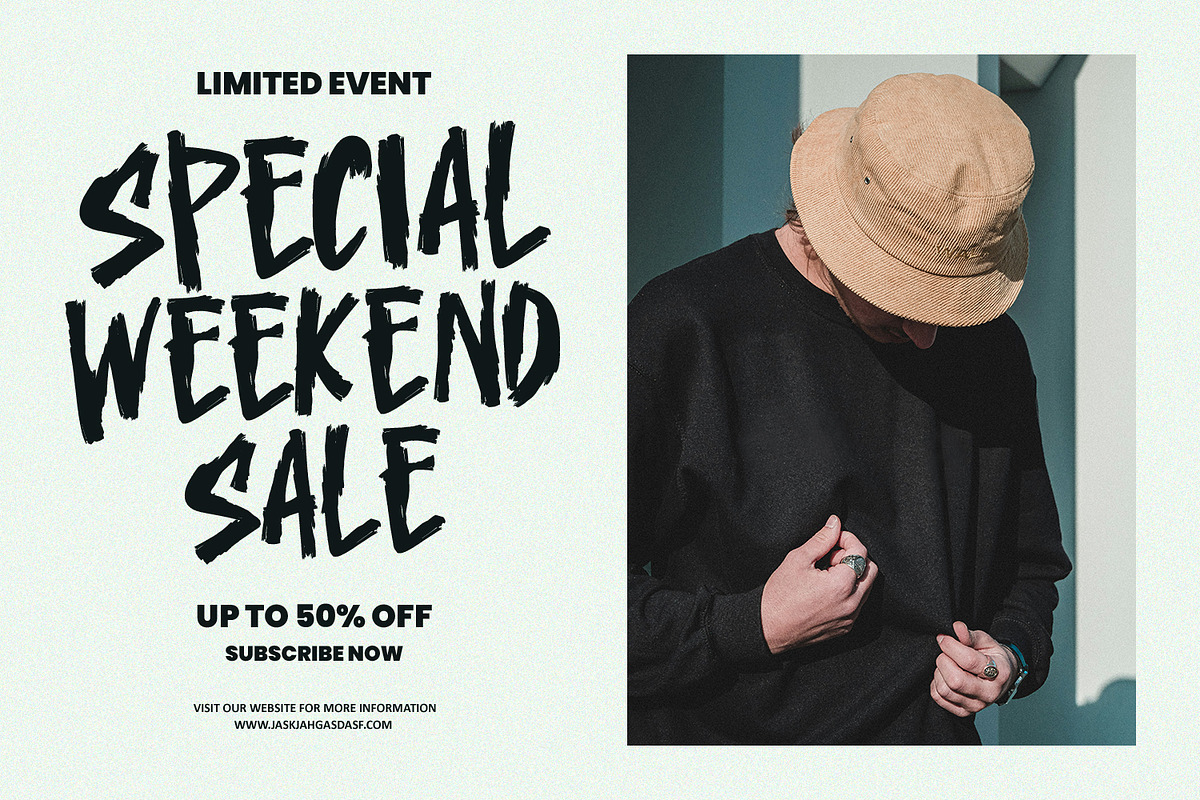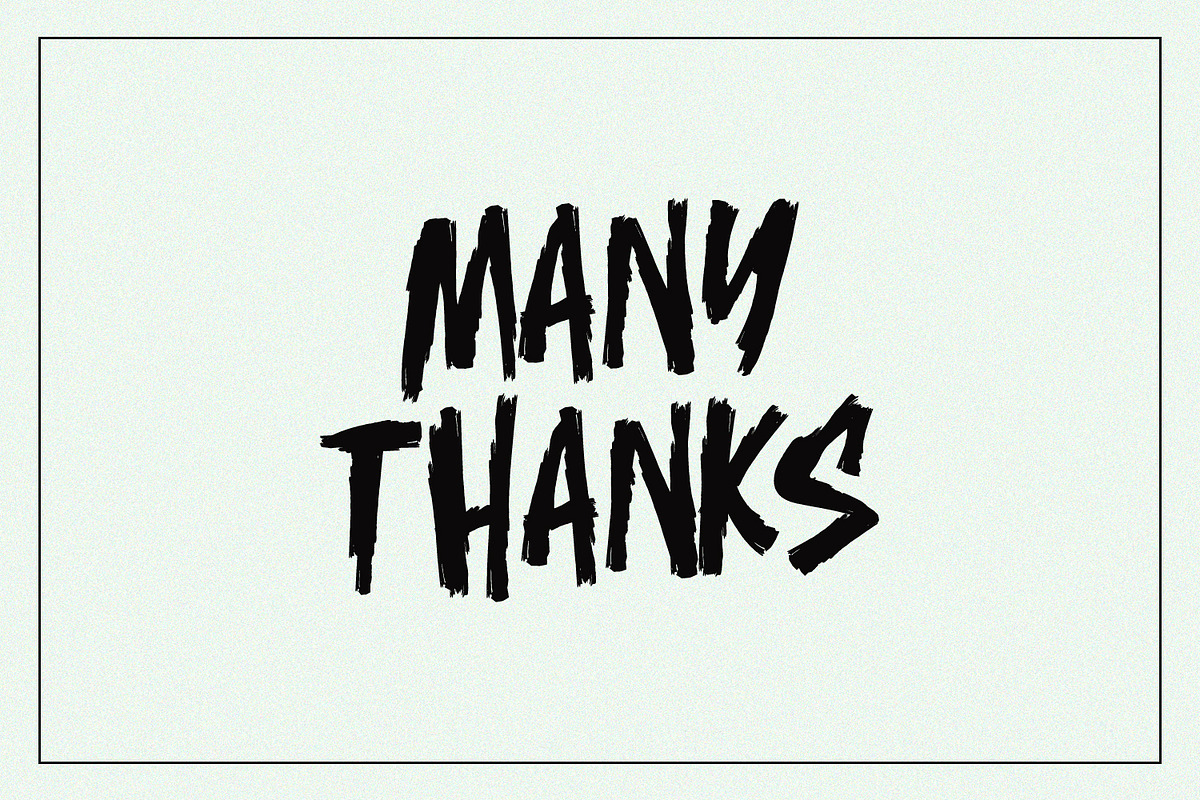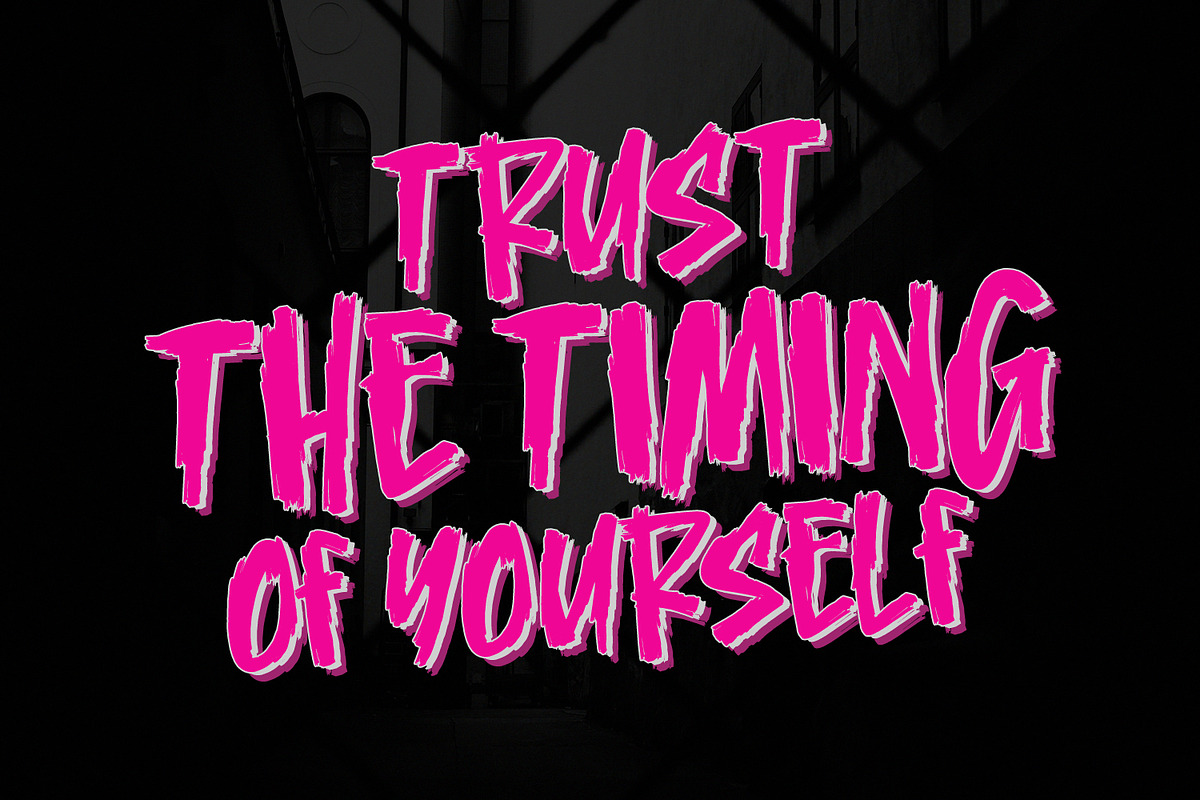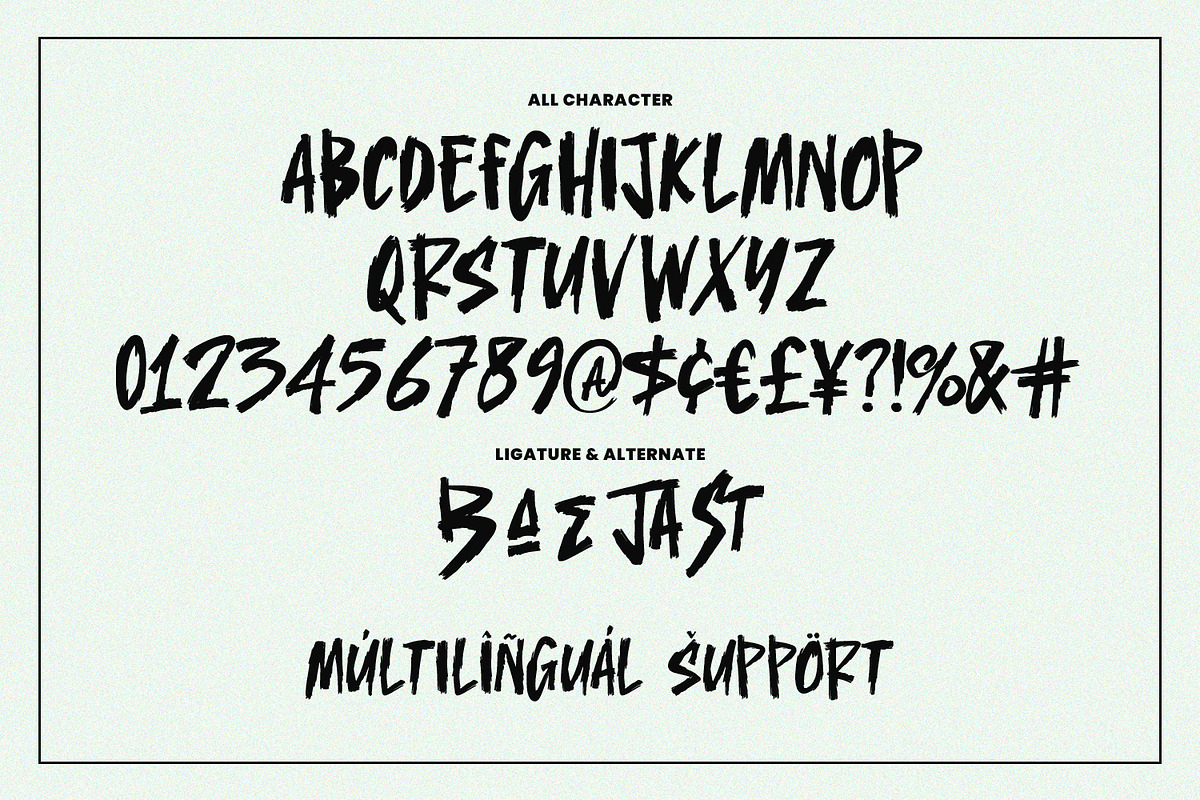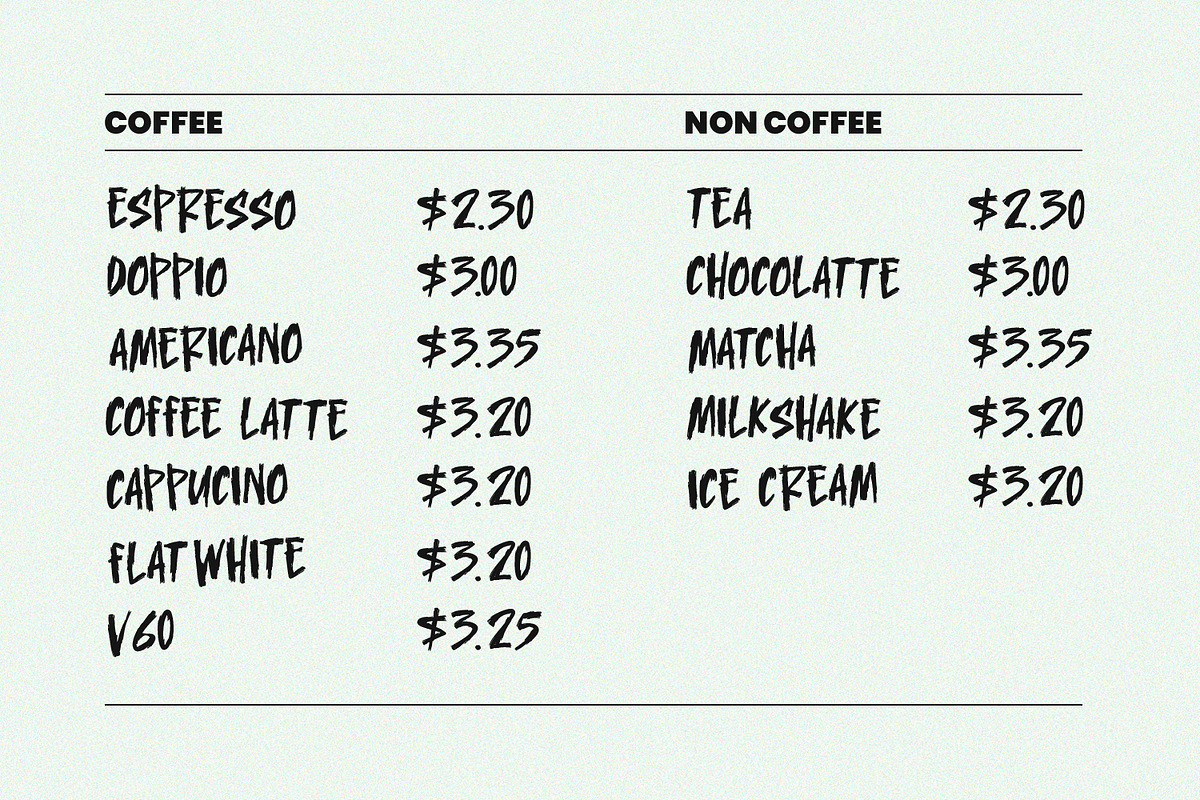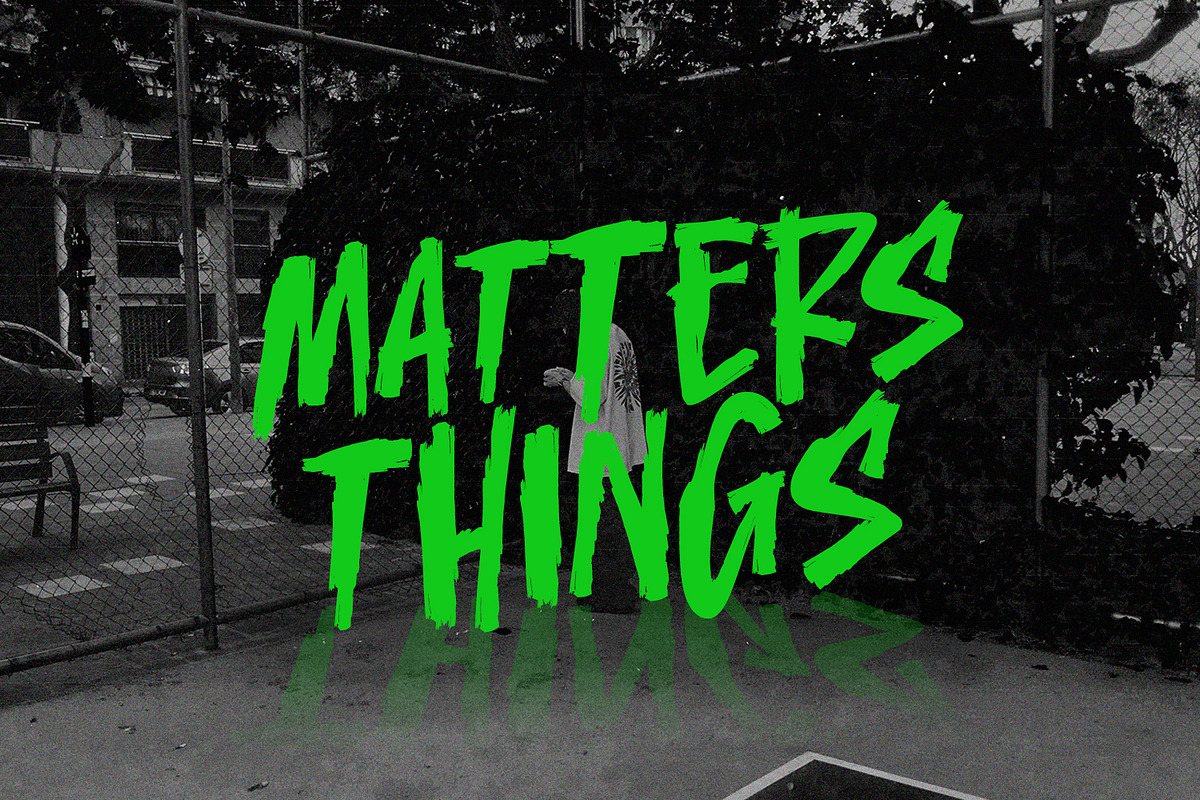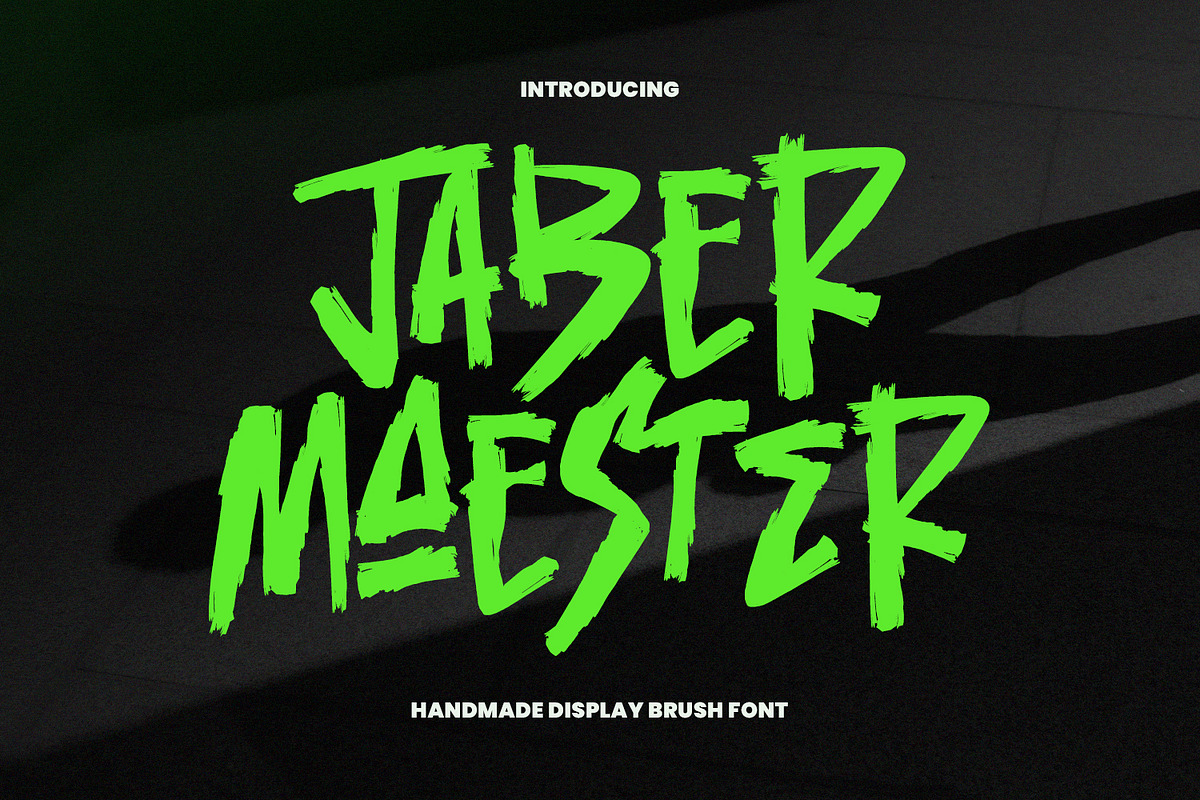
Jaber Maester Handmade Display Brush
Unleash your boldest creativity with Jaber Maester, a powerful and energetic handmade display brush font. Inspired by raw urban art, street graffiti, and high-impact sports design, Jaber Maester delivers an unmissable, authentic hand-painted aesthetic that immediately grabs attention.
Why Choose Jaber Maester?
- Raw Energy: Featuring rough edges, dry brush textures, and dynamic strokes, this font injects a sense of rebellious spirit and raw authenticity into any project. It’s perfect for designs that need to shout, not whisper.
- Maximum Impact: With its thick, all-caps design, Jaber Maester is built for display use. It’s ideal for headlines, logos, posters, album covers, merchandise, extreme sports branding, and large-scale signage.
- Versatile Style: Whether you’re crafting a gritty, punk-rock poster or a vibrant, modern menu (as seen in the preview), this font adapts while retaining its unique, energetic personality.
- Full Feature Set: Includes a complete set of uppercase letters, numbers, punctuation, and multilingual support to ensure your message translates globally. Plus, check out the unique ligatures and alternates for extra design flair!